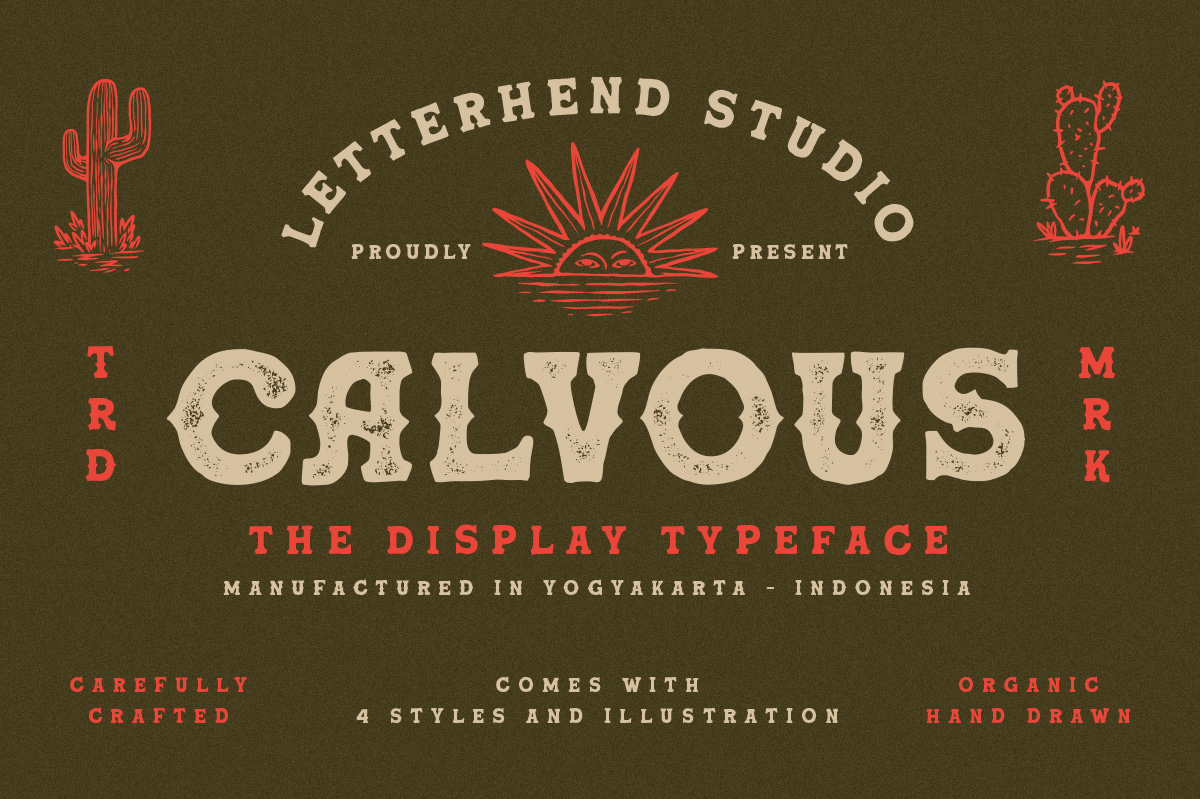
Calvous - Slab Serif Typeface Font
Perfect for bold branding, editorial layouts, posters, packaging, headlines, and website banners.
The Calvous - Slab Serif Typeface Font excites designers with its strong slab serifs, geometric structure, and confident presence that commands attention in both print and digital formats.
The Calvous - Slab Serif Typeface Font Free Download is a striking typeface built to make a statement. Its thick, block-like serifs and solid proportions deliver a sense of stability and authority, perfect for designs that need to stand out with confidence. Whether used in magazine titles, branding materials, or large-scale posters, Calvous offers maximum visual impact.
One of the key strengths of Calvous - Slab Serif Typeface Font is its ability to combine power with clarity. While its bold letterforms attract attention, its carefully balanced spacing ensures readability, making it ideal for both headlines and impactful body text.
In branding, Calvous communicates strength, reliability, and professionalism. It pairs excellently with clean layouts, muted or earthy color palettes, and minimalist graphic elements, helping brands establish a confident and trustworthy identity.
For digital projects, this font enhances website headers, hero sections, and social media graphics with its distinctive slab serif style. Its bold and structured look ensures your online presence feels powerful and memorable.